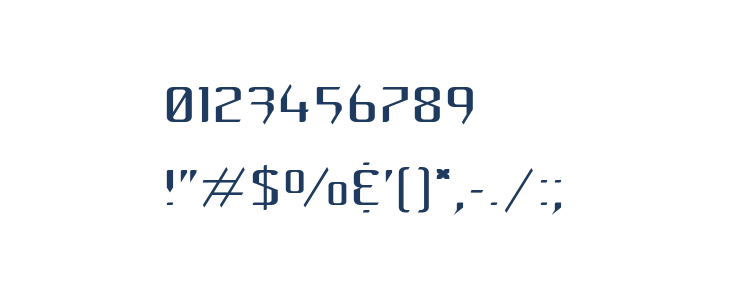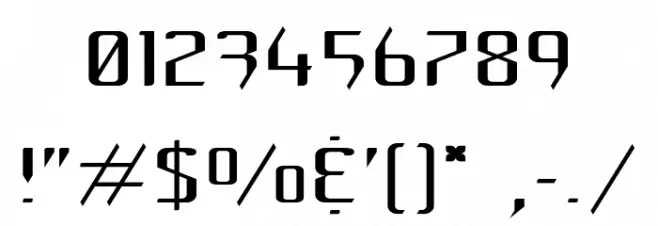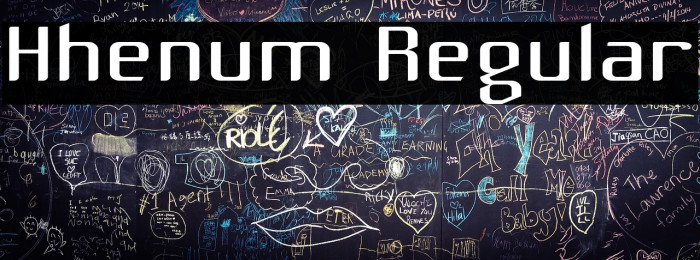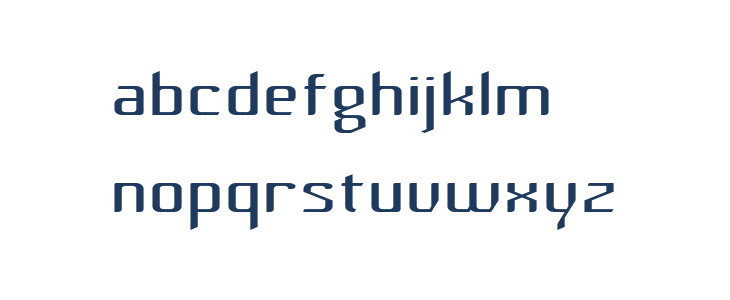
Hhenum Regular Font
Hhenum Regular Description
This font features a modern and geometric design with a distinct angular style. The characters are constructed with sharp edges and a consistent stroke width, giving it a futuristic and technical appearance. The uppercase letters are bold and commanding, while the lowercase letters maintain a similar structure with slightly softer curves. The numerals are uniquely styled to match the overall aesthetic, and the special characters are integrated seamlessly. This font's clean lines and structured form make it suitable for digital and print media where a contemporary look is desired.
A modern, geometric font with sharp edges and a futuristic style from Serif fonts.
- Proposed Projects: Ideal for technology branding, digital interfaces, posters, and modern editorial design.
- Use Case: Headlines, Logos, Digital interfaces